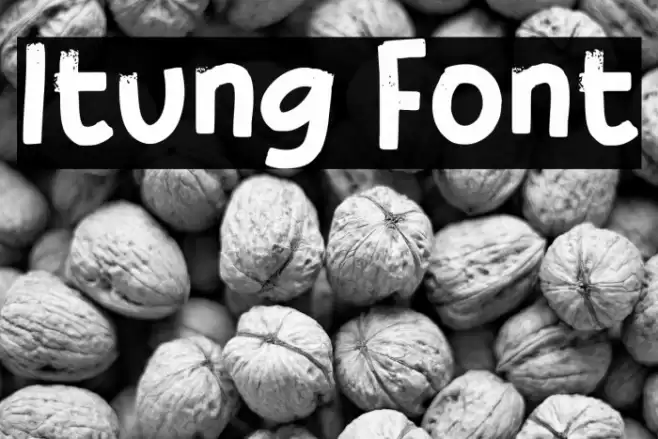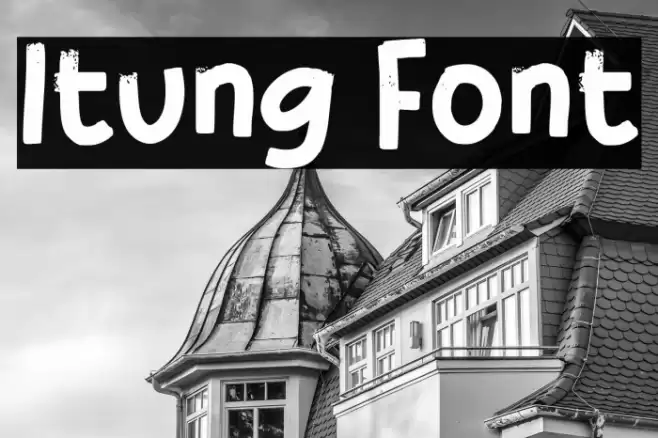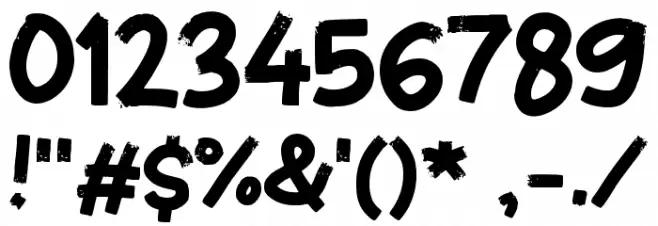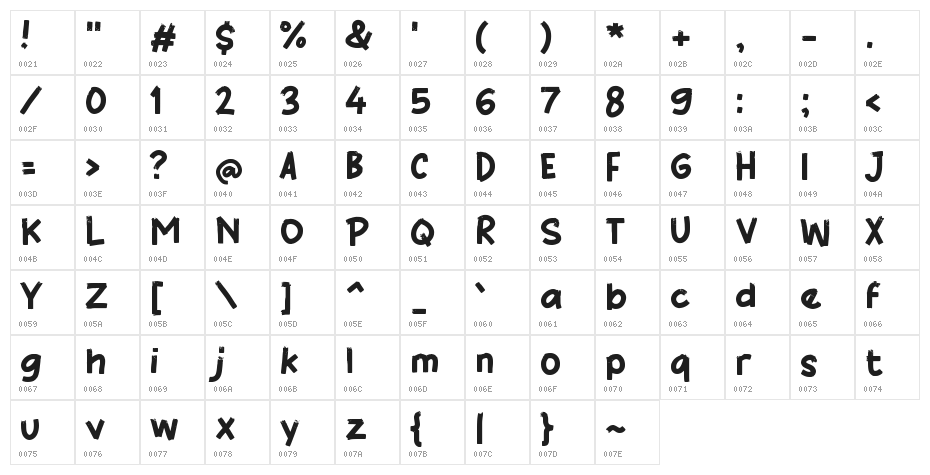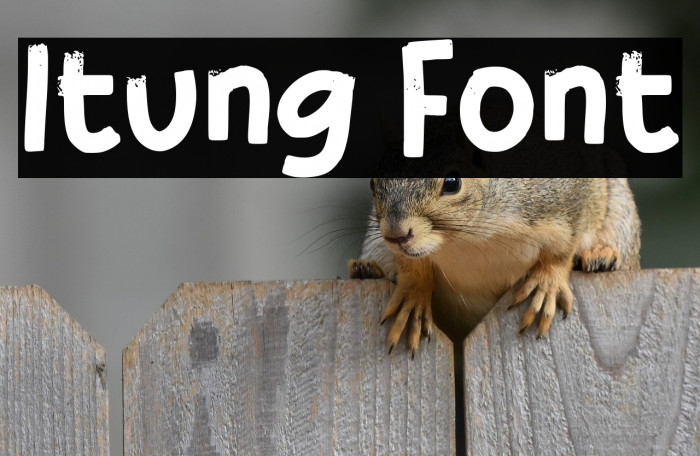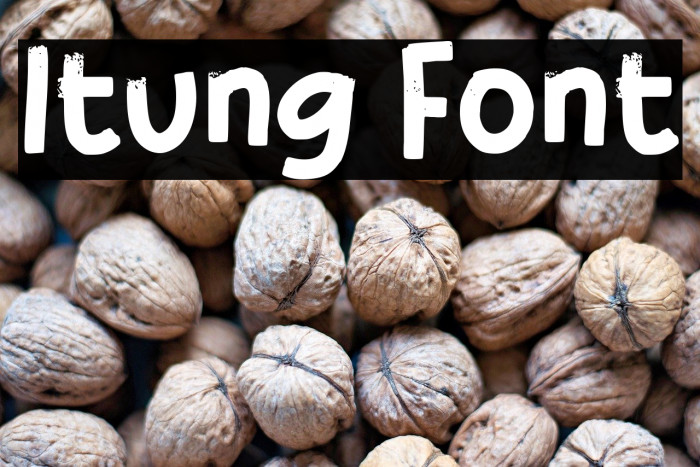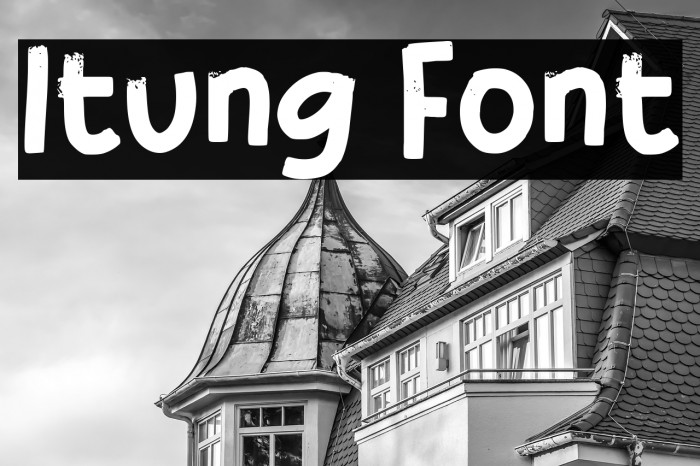
Itung Font
Itung Description
This font features a bold and playful design with a hand-drawn aesthetic. The characters have a slightly irregular and textured appearance, giving them a casual and artistic feel. The strokes are thick and consistent, creating a strong visual impact. The uppercase and lowercase letters maintain a cohesive style, while the numbers and special characters complement the overall look. This font is ideal for projects that require a fun and engaging typeface.
A bold, playful font with a hand-drawn, textured style from Uncategorized fonts.
- Font: Itung
- Proposed Projects: Suitable for children's books, posters, greeting cards, and creative branding projects.
- Overall Style: Playful, Artistic